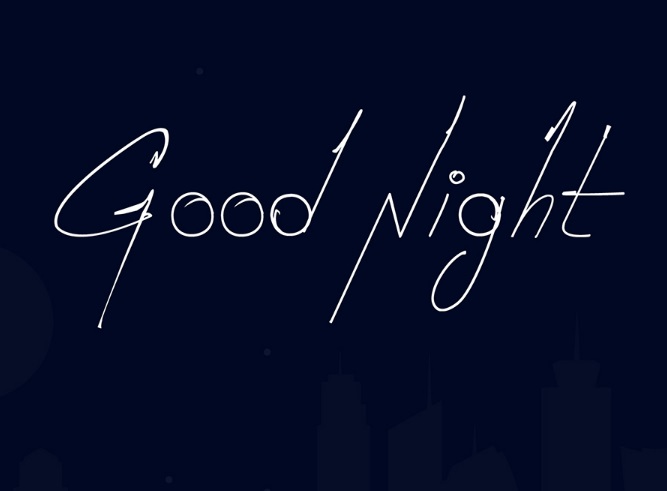
Good Night Font
A Handwritten font awesome, that’s my initial comments. Good Night is designed and shared by Erick Molina, a designer from Tijuana, Mexico. Good Night Font is perfect for handwriting style, it’s very simple but innovative, with this font you’ll be perceived as a text view someone’s handwriting